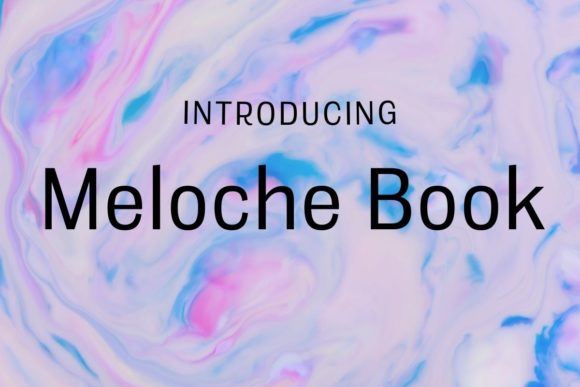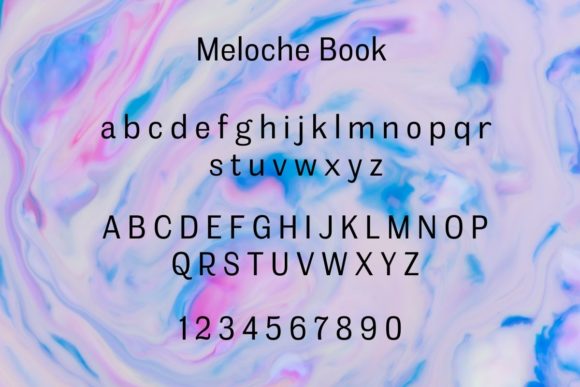
Meloche book is a unique, grotesque and sans serif font influenced by hand-painted French signs of the late nineteenth century. These clean lines make it the perfect font to use for the text body.